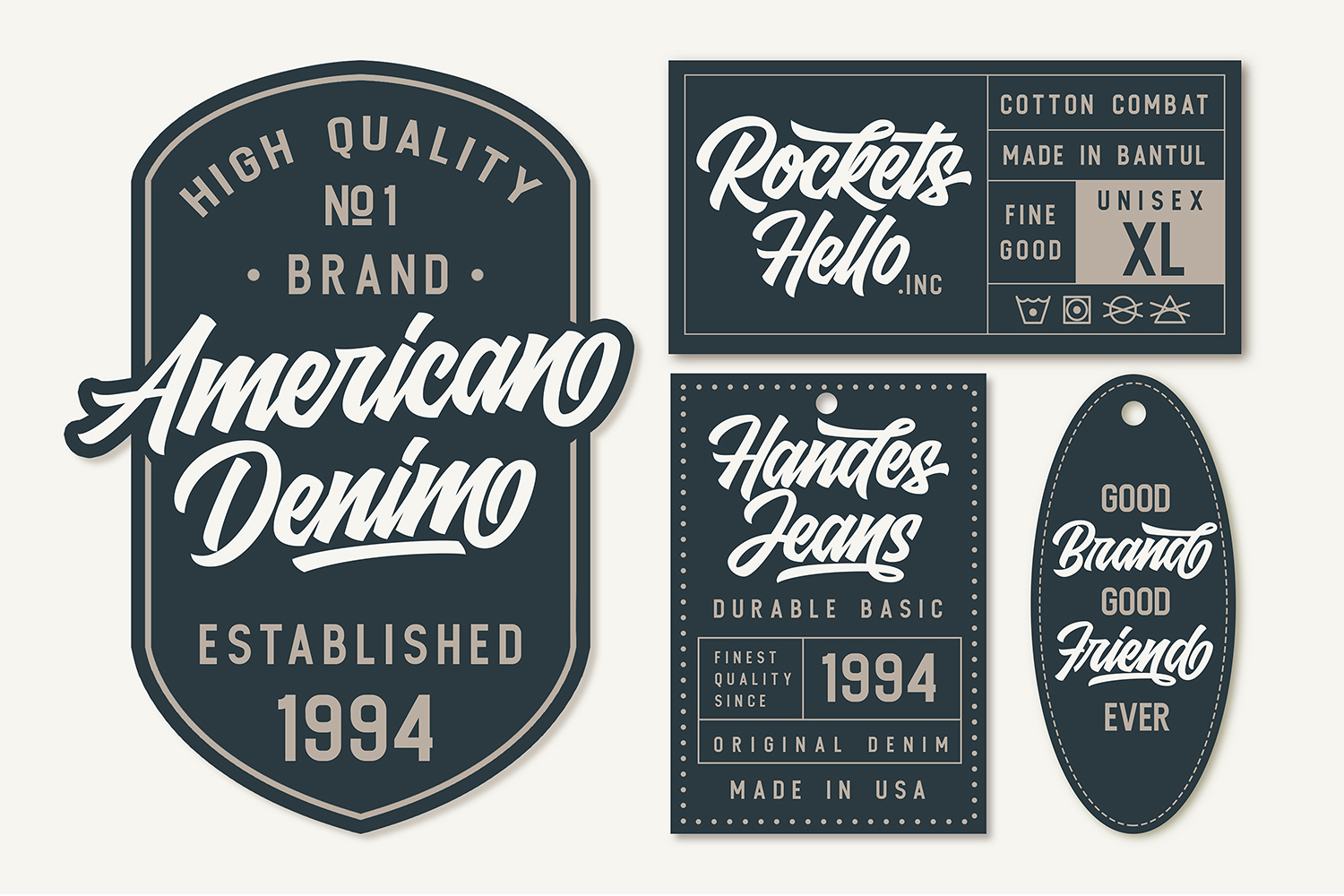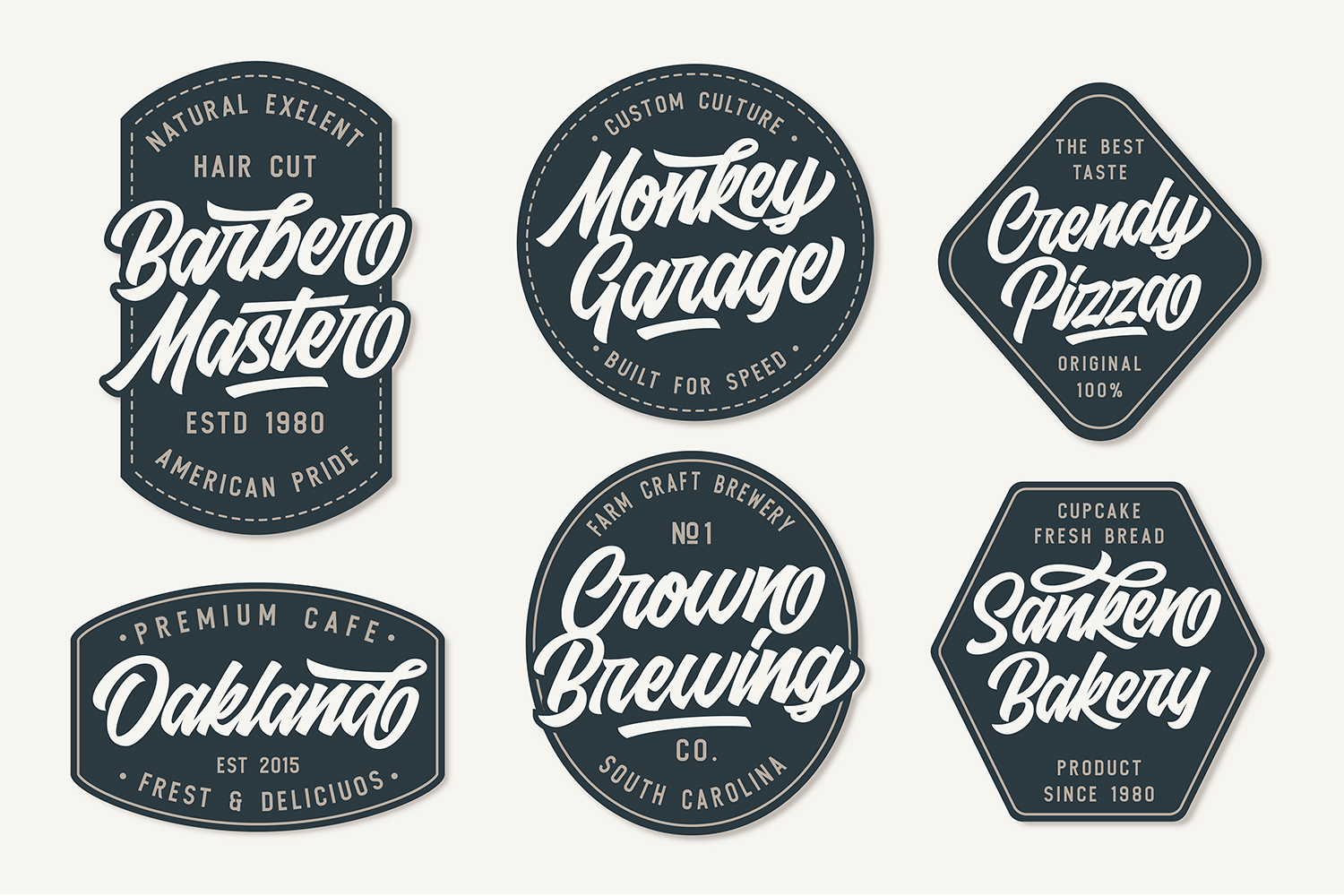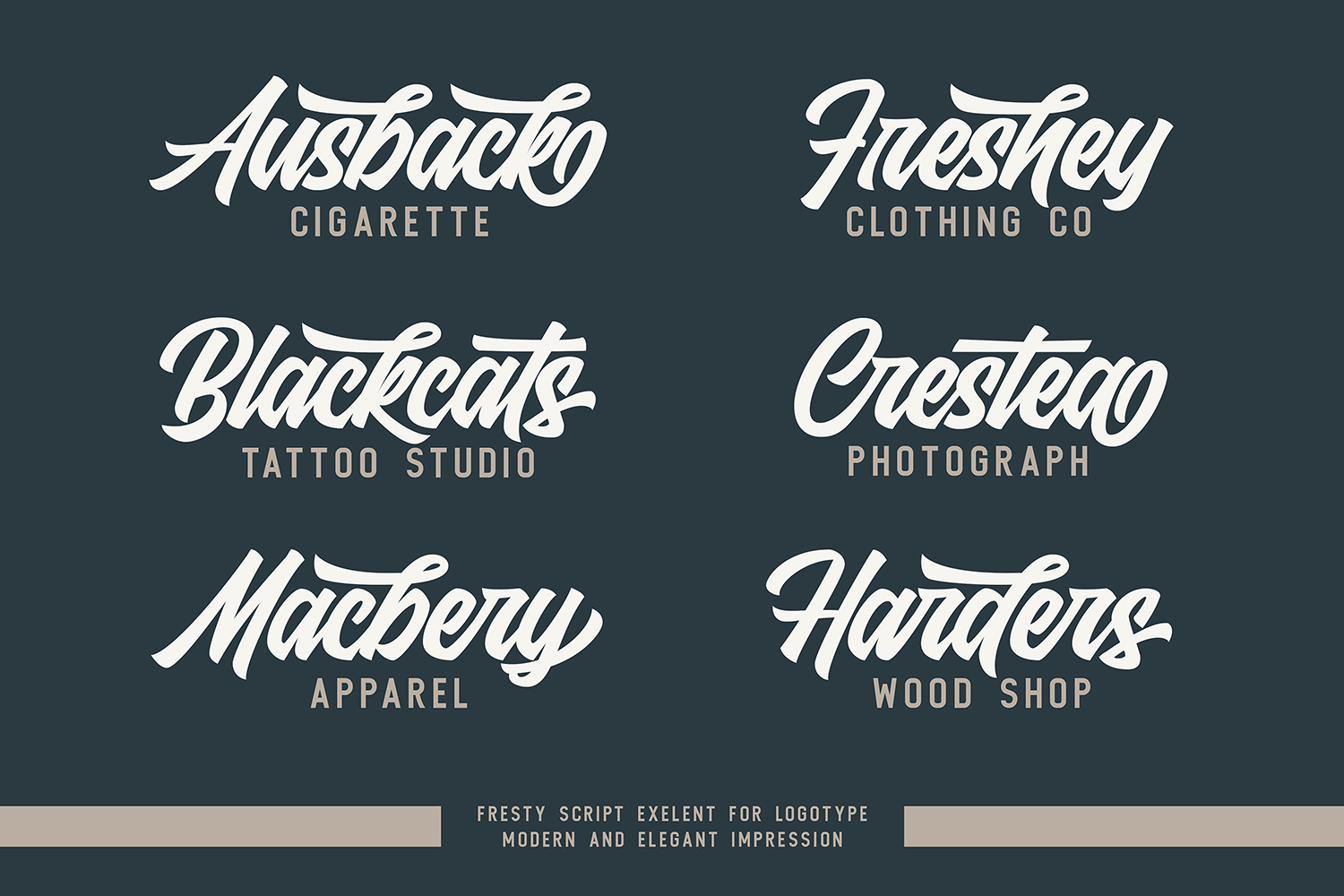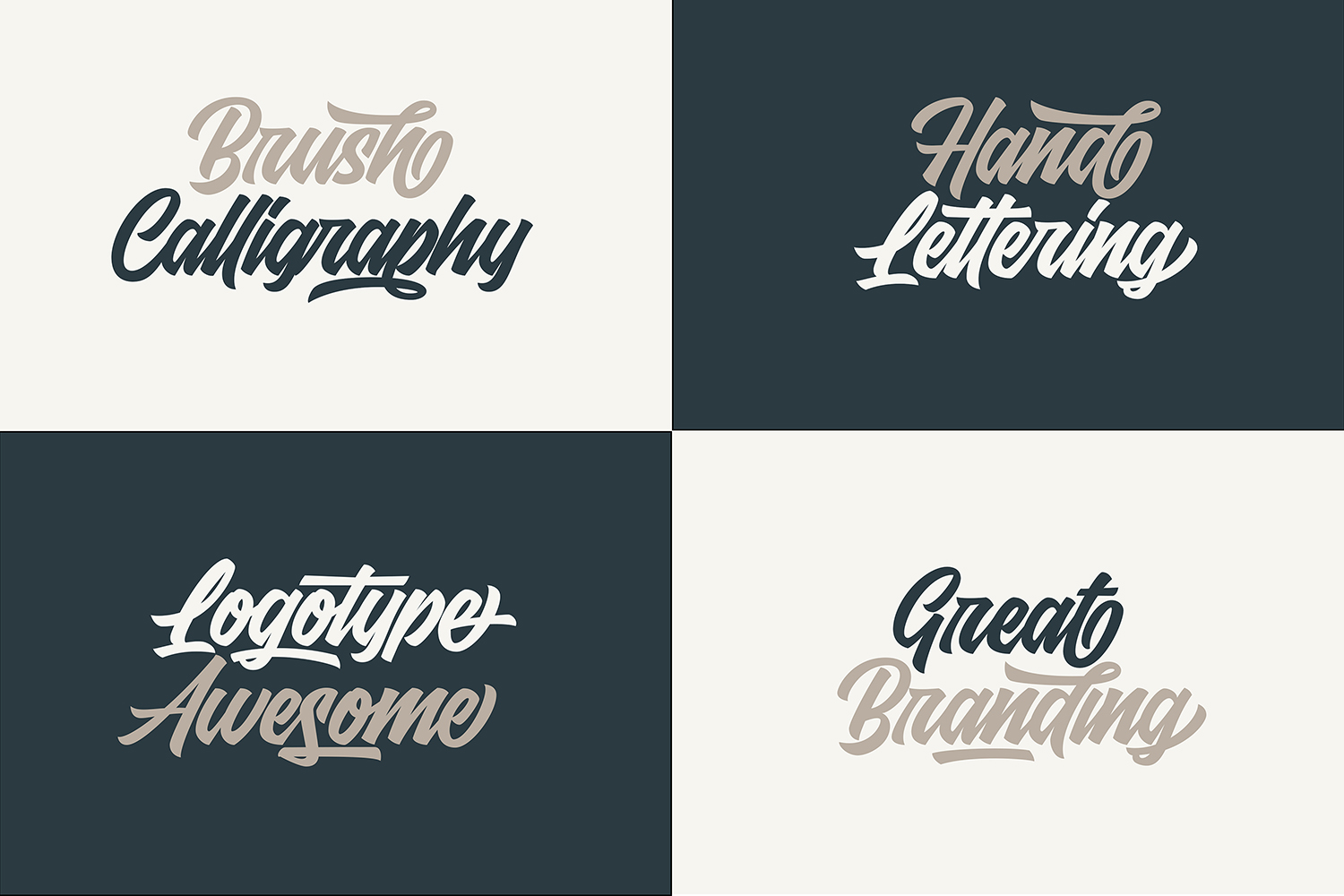
Fresty Scipt Free Font
Fresty Scipt Free Font is awesome for branding and logotype, Fresty has the impression of modern, trendy and elegant. I also create Grillo Nimo sans serif for a combination and I added extras 13 different emblems/badges with editable text. This free typeface was designed by a talented Bangkit Tri Setiadi. If you like it don’t forget to check out the full version.